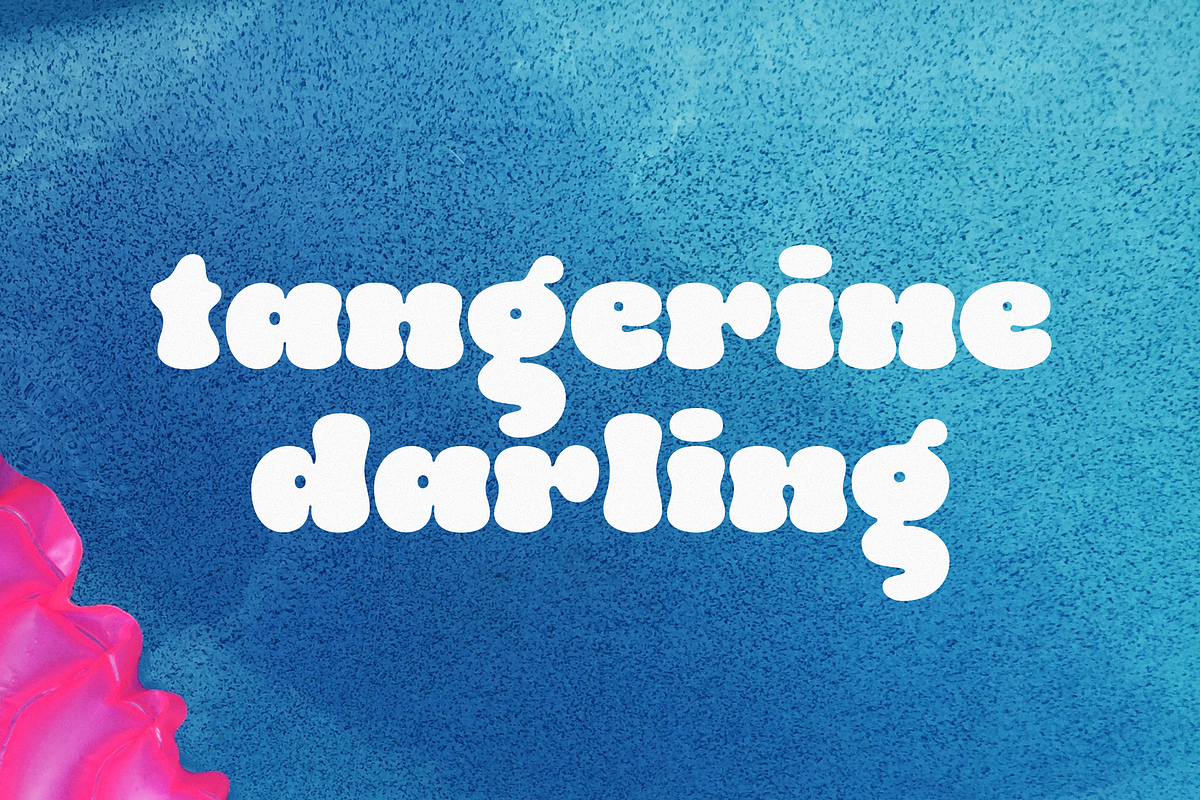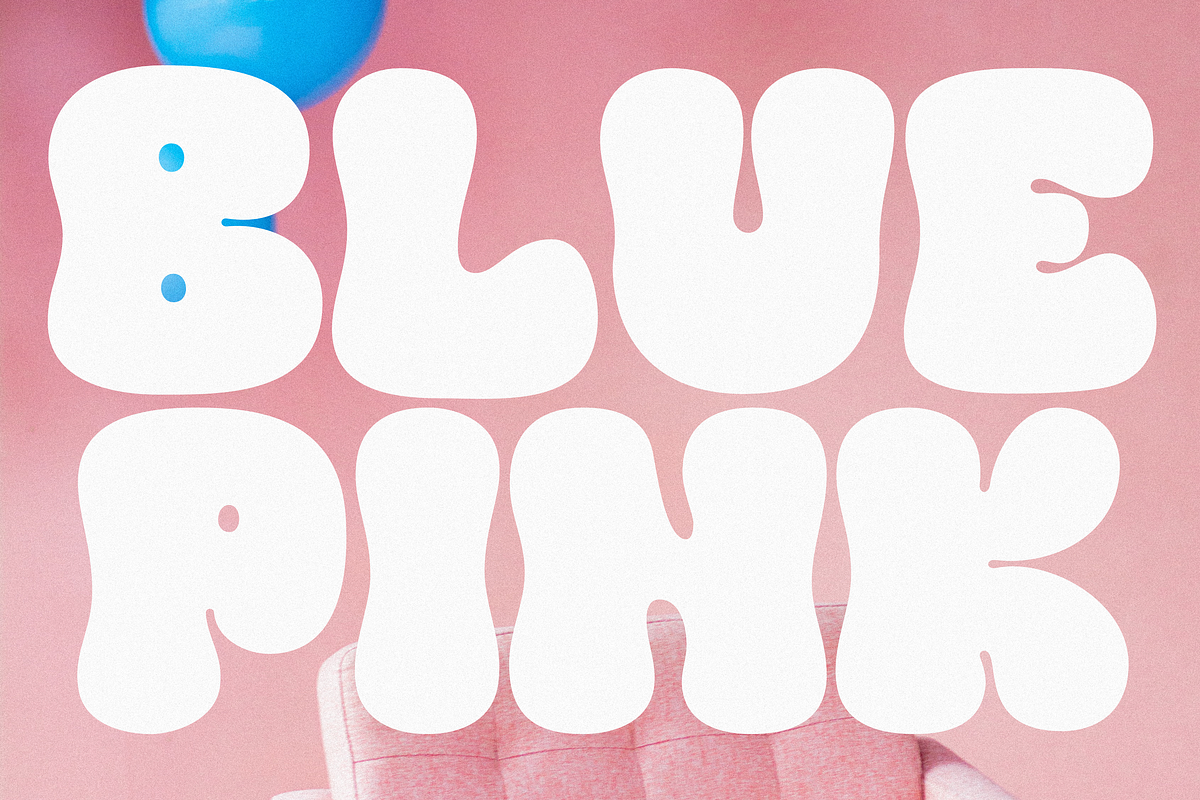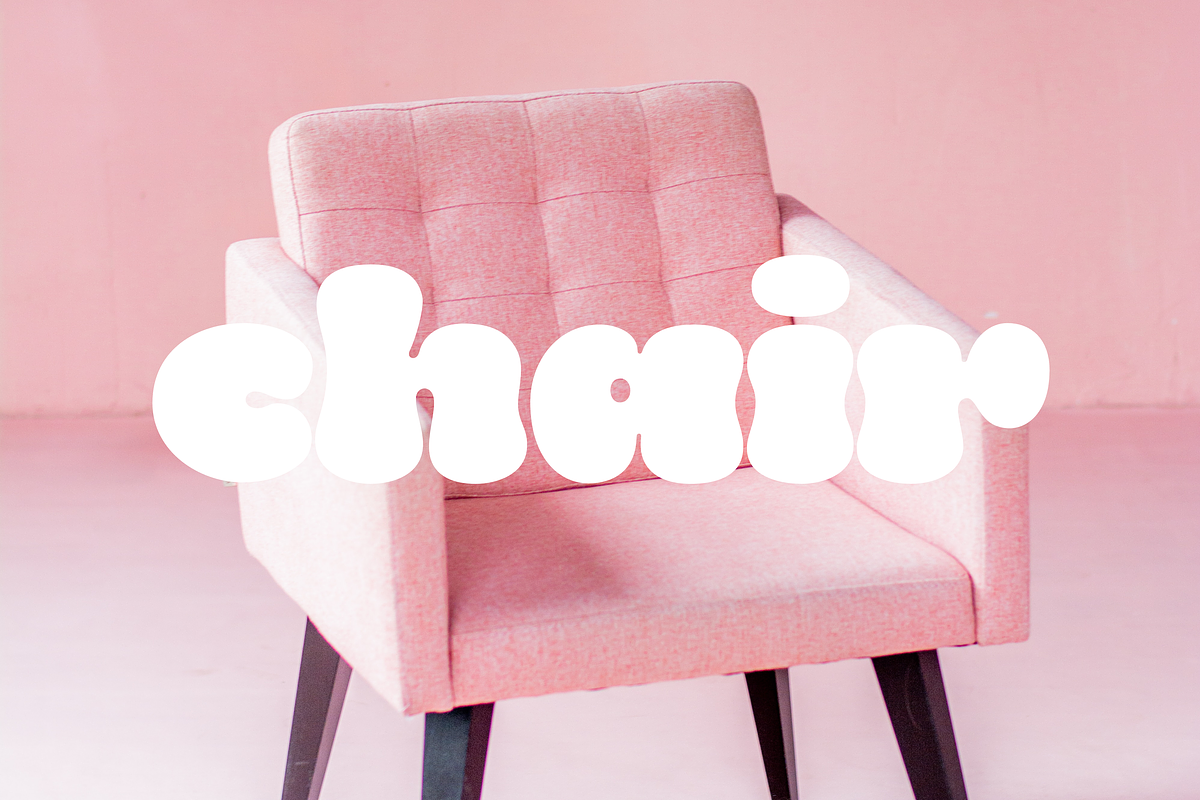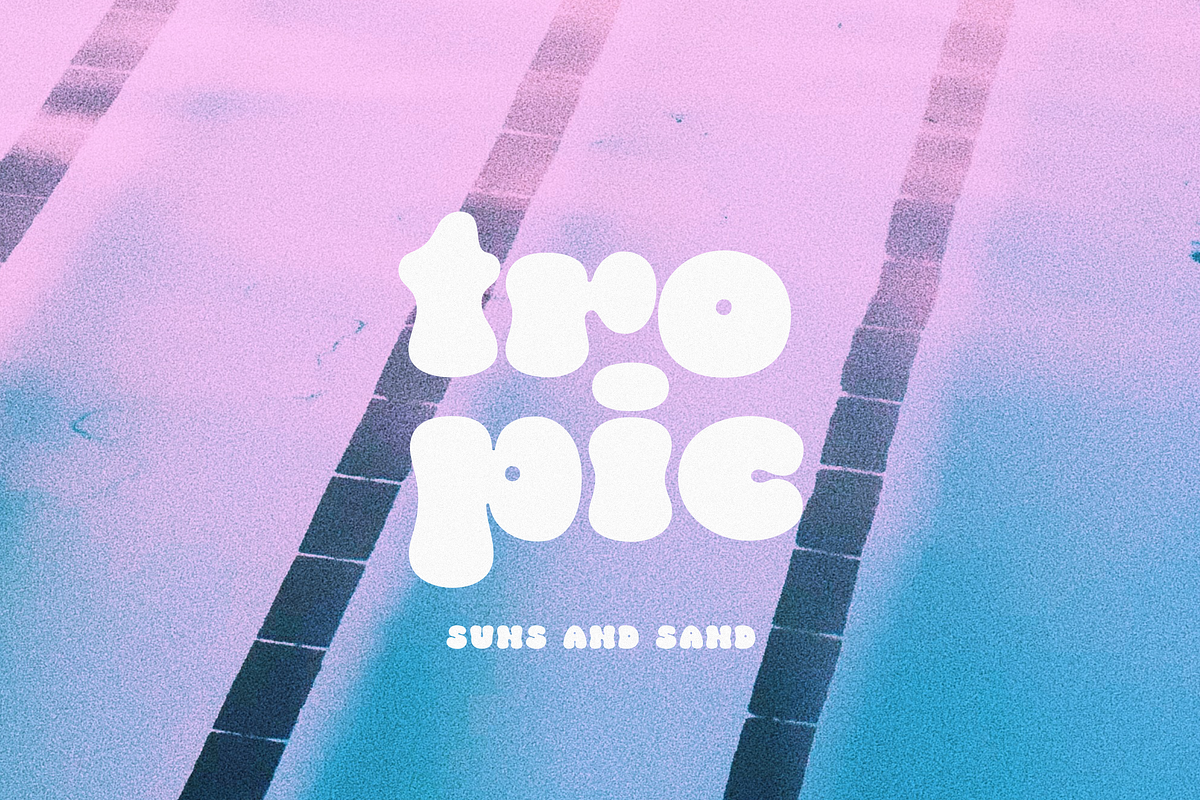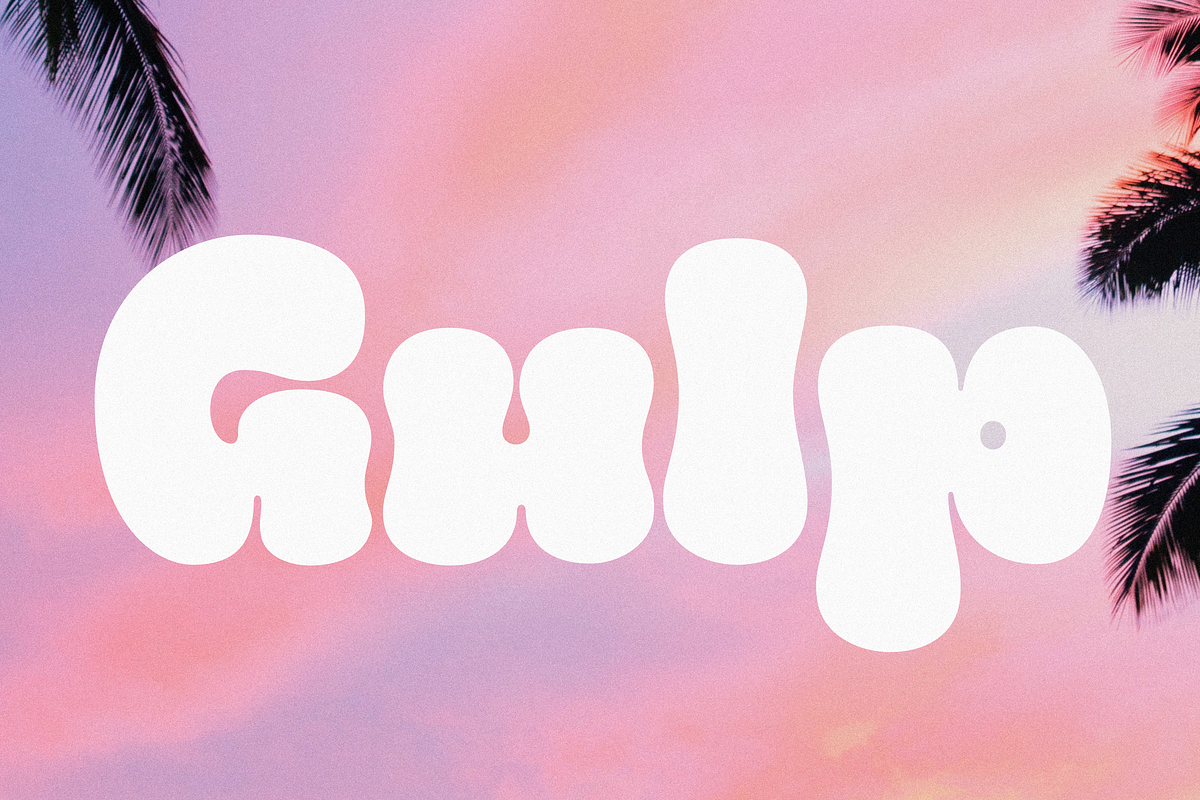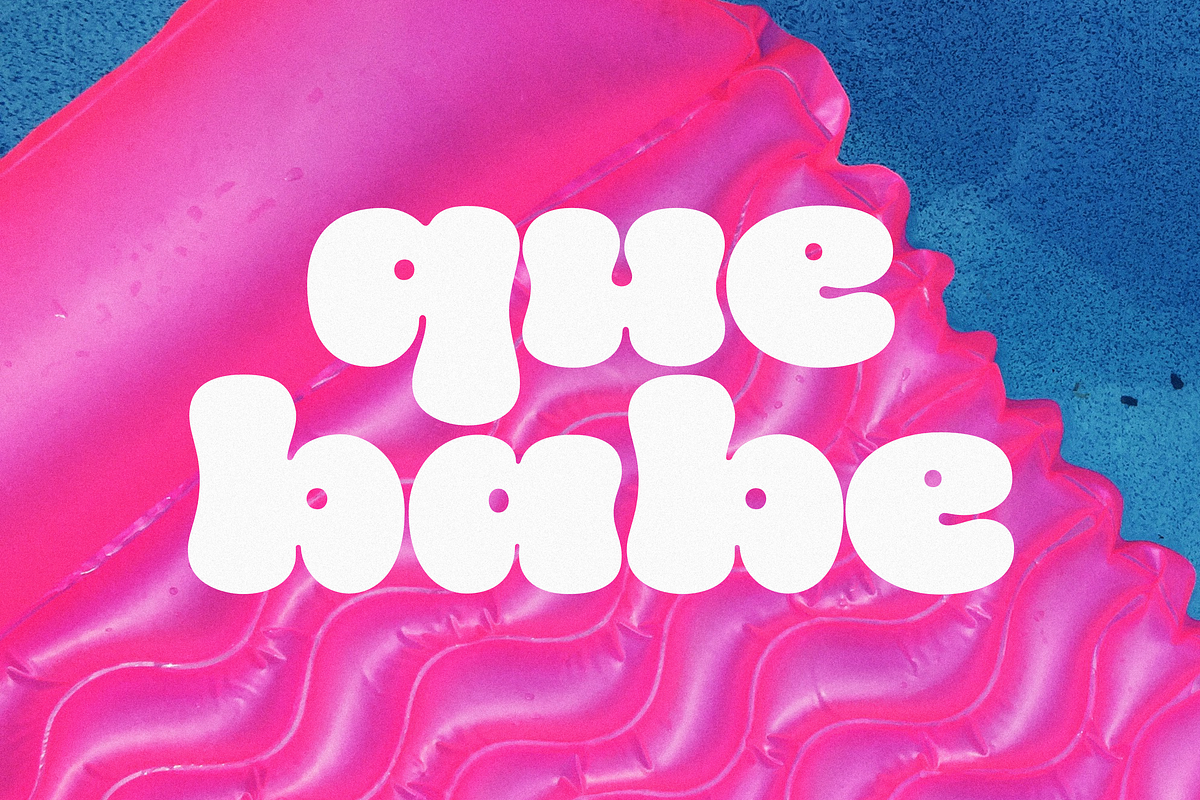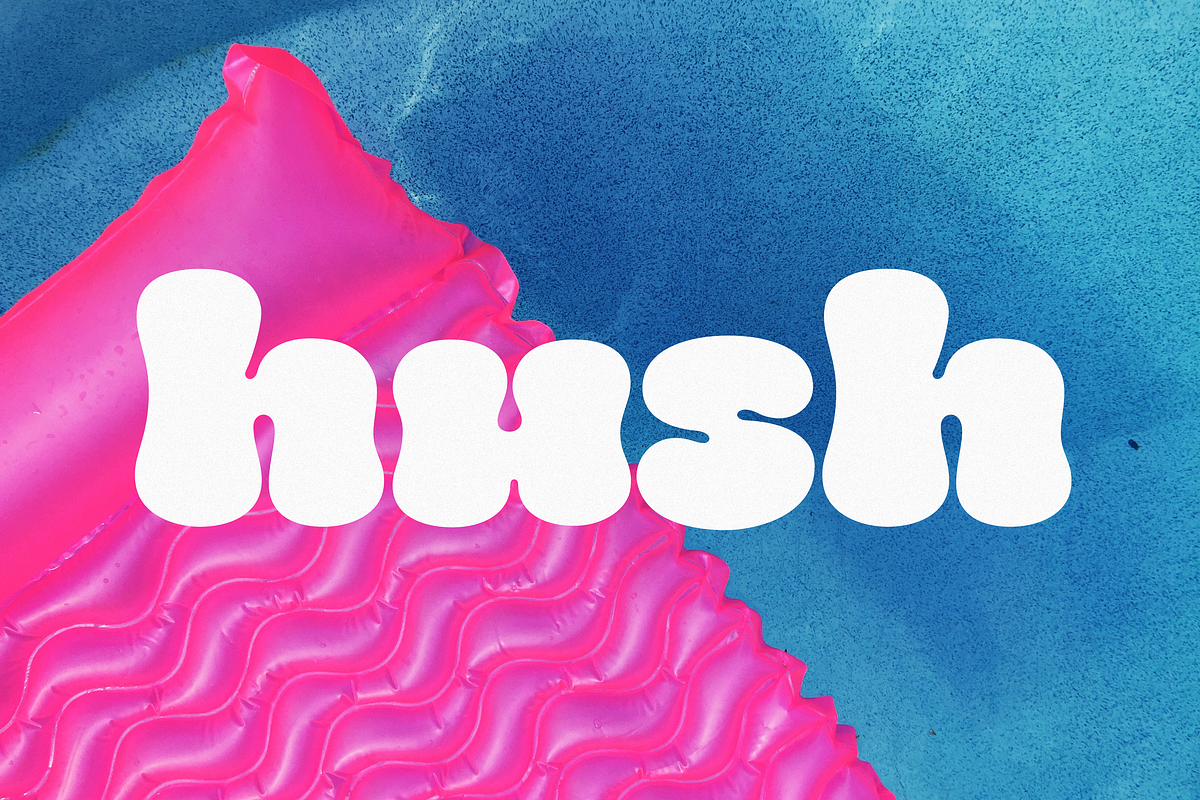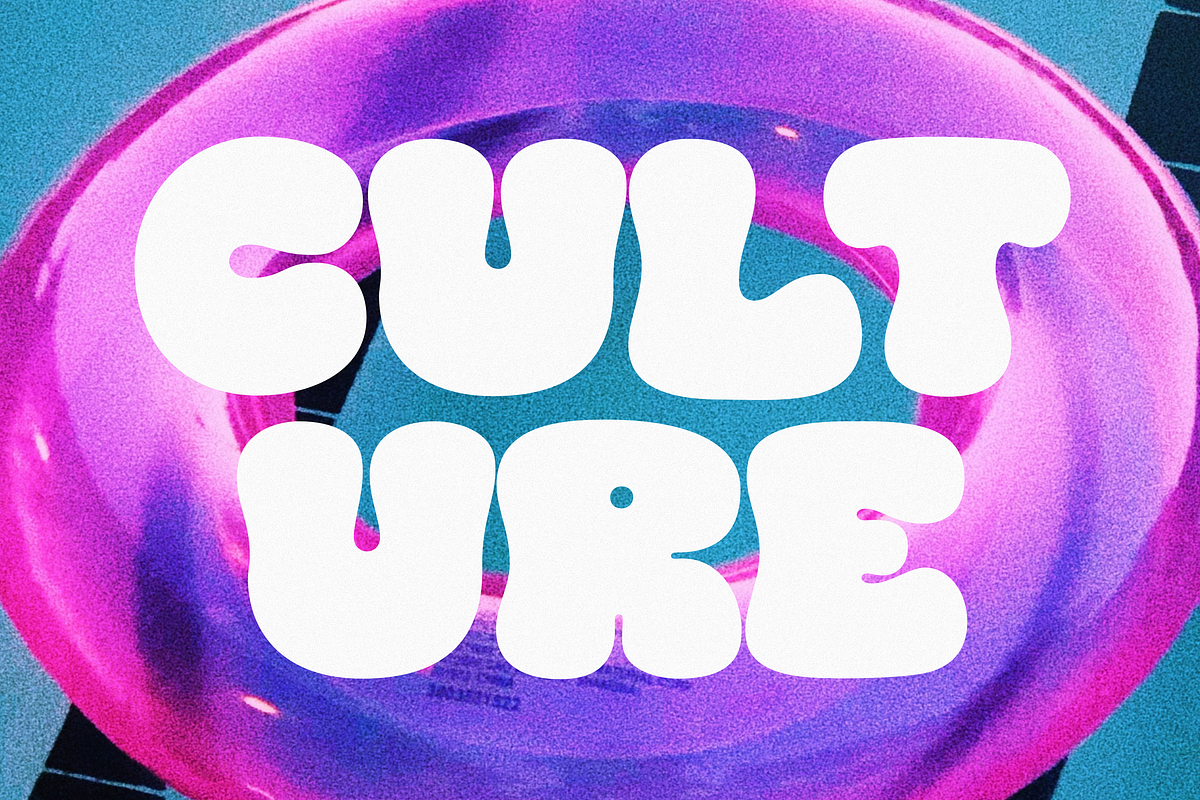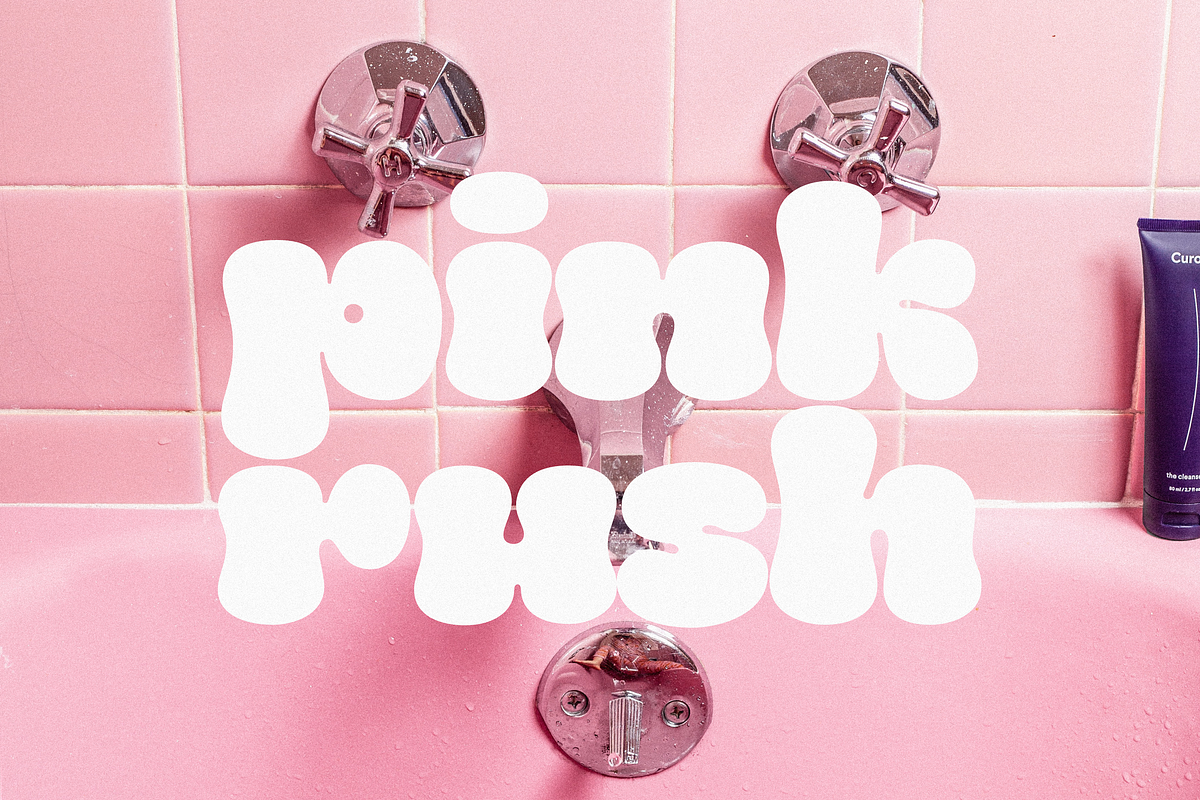
Gush - Tropic Font
Gush - Bold Retro Font by Sans and Sons
introducing our new "Gush" Modern Retro with Bold and Tropic Style is perfect for branding, logos, invitation, master heads, and more.